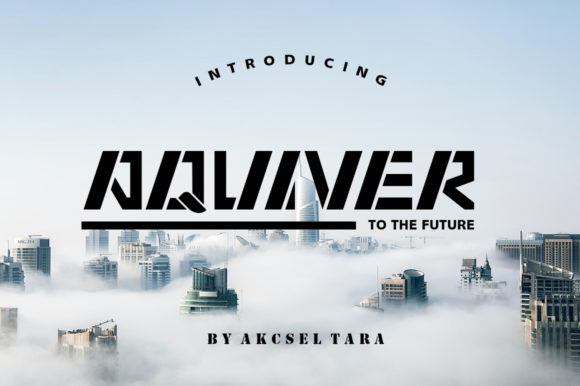
Channel your inner creativity and boldness with Aquiver Font, a futuristic and captivating display font that will leave an unforgettable impression on your designs. Step into a realm of captivating typography and unleash your imaginative potential. Aquiver Font is meticulously crafted to ignite your designs, transforming them into masterpieces that command attention and ignite conversations.
With Aquiver Font, your title pages will burst into life, exuding an aura of confidence and innovation. Its sharp angles and dynamic curves dance across the page, creating a visual symphony that captivates the senses. Picture your posters and flyers adorned with Aquiver Font, becoming beacons of inspiration and artistic prowess.
The versatility of Aquiver Font knows no bounds. It seamlessly adapts to a vast array of design concepts, from sleek and modern to retro and whimsical. Its boundless potential empowers you to craft designs that resonate with your unique style and leave an everlasting impact on your audience.
Don't settle for ordinary fonts; embrace the extraordinary with Aquiver Font. Its futuristic charm and bold charisma will elevate your designs to new heights of creativity and originality. Join the ranks of design visionaries and make Aquiver Font your weapon of choice for captivating and unforgettable designs.